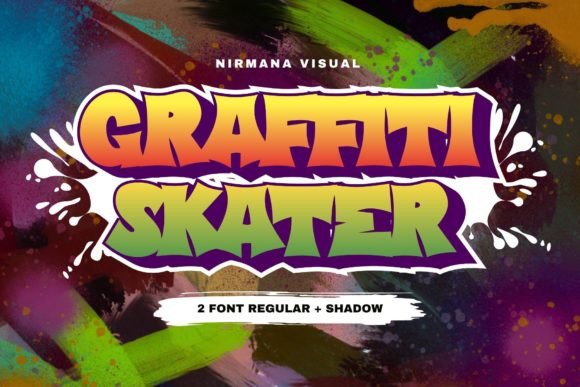
Introducing Graffiti Skater Font, a Defiant and Daring Display Typeface That Unleashes Your Inner Rebel!
In a world saturated with mediocrity, rise above the noise and embrace the untamed spirit of street art with Graffiti Skater Font. This exceptional display font, crafted by the visionary Sigit Dwipa, embodies the rebellious soul of urban expression, capturing the raw energy and authenticity of graffiti culture.
Step into the realm of edgy design, where bold and unapologetic letters reign supreme. Graffiti Skater Font's thick, uppercase characters exude a defiant attitude, featuring jagged edges and unique embellishments that mimic the untamed strokes of spray paint. This font is a masterpiece of urban typography, sure to leave an indelible mark on your creative projects.
Fashioned for those who dare to stand out, Graffiti Skater Font is the perfect weapon for creating captivating titles and headlines that command attention. Its unique aesthetic lends itself effortlessly to urban-inspired designs, music posters, and projects demanding an edgy and daring touch. Whether you're a seasoned designer or an aspiring artist, this font will amplify your message, turning your words into visual masterpieces.
Unleash your creative potential and let Graffiti Skater Font ignite your imagination. Its bold personality will transform ordinary designs into extraordinary works of art, echoing the defiant spirit of street culture.